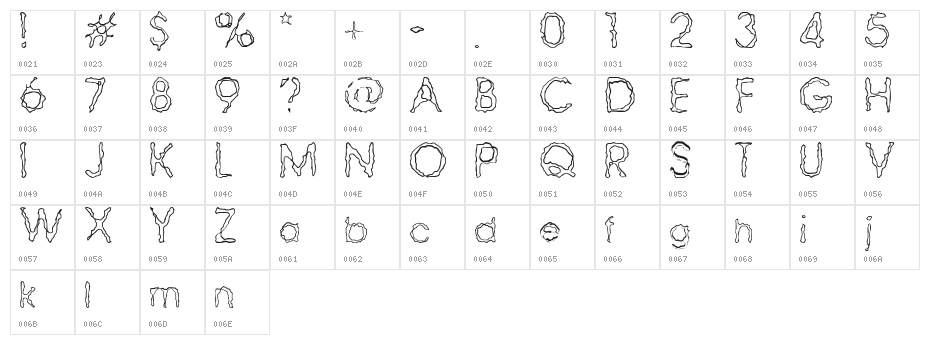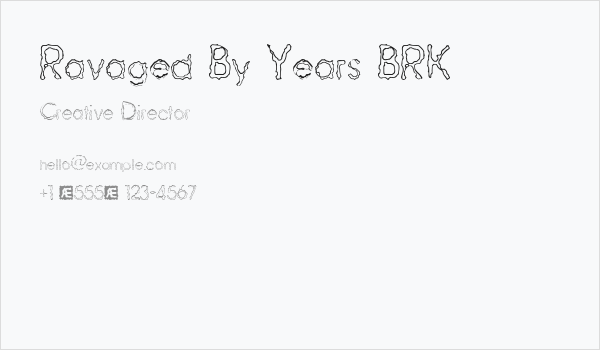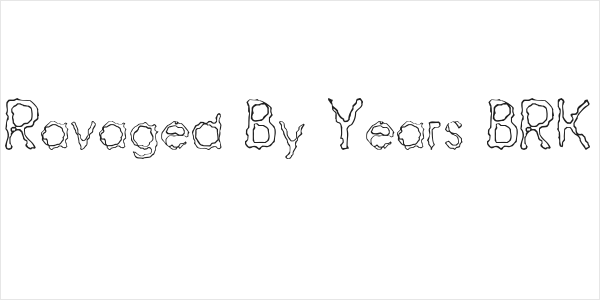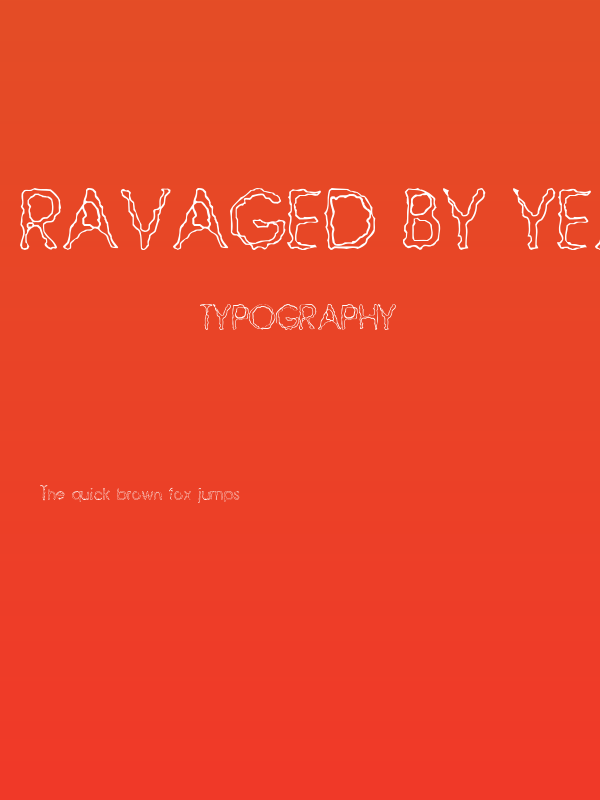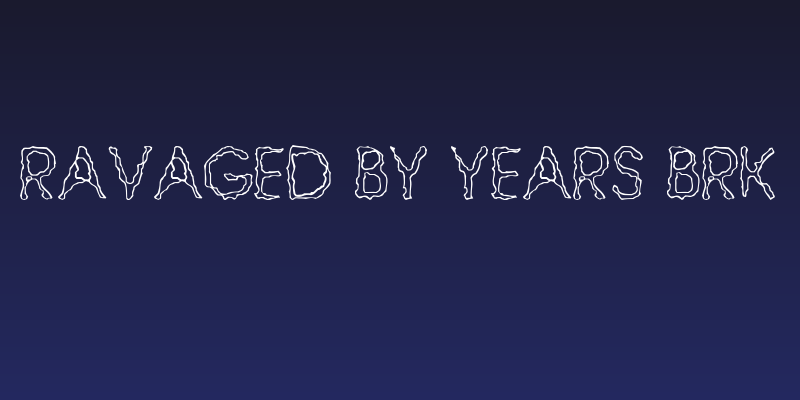
Ravaged By Years BRK Font
Ravaged By Years BRK Description
This font features a unique, distressed appearance that mimics the effect of erosion or decay. Each character is outlined with irregular, jagged edges, giving it a rugged and weathered look. The style is reminiscent of something that has been worn down over time, creating a sense of age and history. Despite its rough exterior, the characters remain legible and distinct, making it suitable for creative projects that require a touch of the unconventional. The font includes a full set of uppercase and lowercase letters, numbers, and a variety of special characters, all maintaining the same eroded aesthetic.
| Proposed Projects | Ideal for horror-themed designs, vintage posters, album covers, or any project needing a gritty, aged look. |